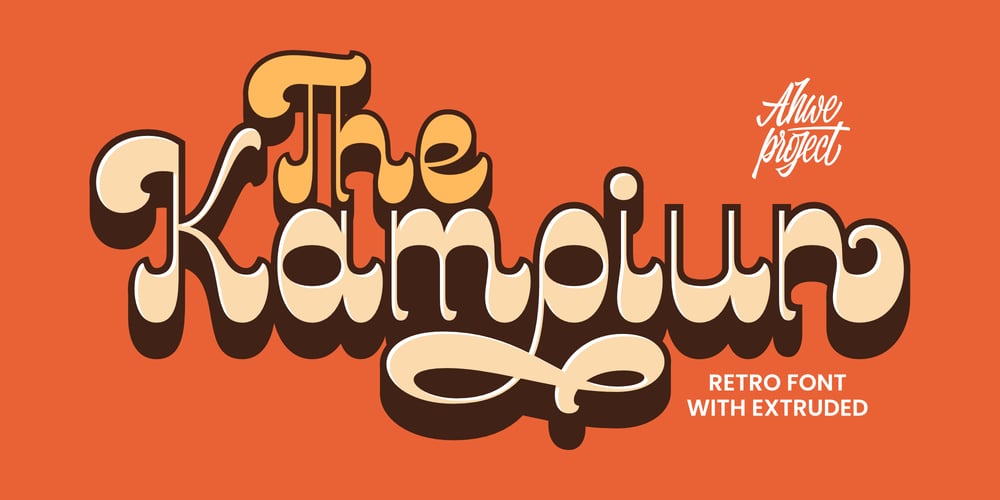
Kampiun
Kampiun font
Kampiun Font Family was designed by Dida Ahluddin and published by ahweproject. Kampiun contains 4 styles and family package options. Introducing the delightful Kampiun font! With its captivating reverse retro script style, Kampiun brings a sense of groovy nostalgia and smooth elegance. No matter the topic, this font will be an incredible asset to your fonts’ library, as it has the potential to elevate any creation.